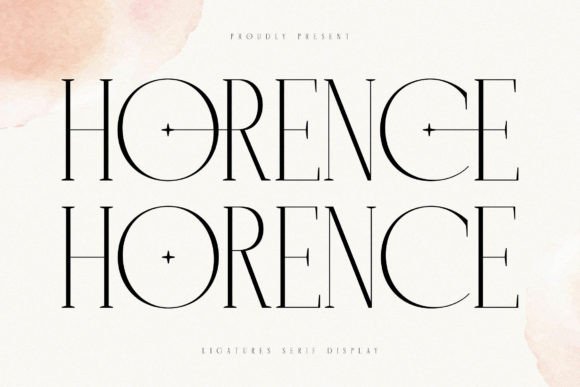
Embark on a typographic journey into the realm of elegance and sophistication with Horence Font, a serif masterpiece crafted by Storytype Studio. This modern classic oozes timeless beauty, leaving an indelible impression on any design it adorns.
Horence Font's graceful curves and delicate details exude a luxurious aura, making it the perfect choice for logos that demand attention. Its refined strokes lend an air of elegance to book and movie titles, capturing the essence of timeless storytelling. Elevate your fashion brand's image with Horence Font's sophisticated aesthetic, allowing your designs to stand out in a sea of mediocrity.
With Horence Font, magazines and clothing lines gain a touch of timeless allure, inviting readers and customers alike to immerse themselves in a world of refined beauty. Let your words dance across the page with Horence Font's captivating letterforms, creating quotes and lettering that resonate with grace and poise.
Horence Font's versatility knows no bounds, extending its charm to a myriad of creative endeavors. Unleash your imagination and explore the endless possibilities, from wedding invitations that exude romance to social media posts that radiate sophistication. Horence Font transforms the ordinary into the extraordinary, adding a touch of magic to every design it graces.
Embrace the allure of Horence Font and elevate your creative projects to new heights. Let its timeless beauty captivate your audience, leaving them spellbound by the sheer elegance of your designs. Download Horence Font today and embark on a journey of typographic excellence.